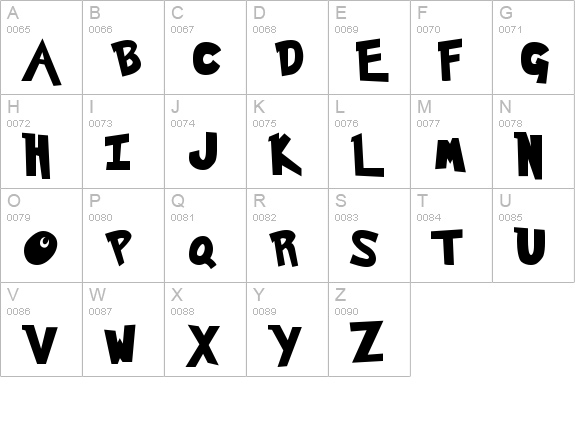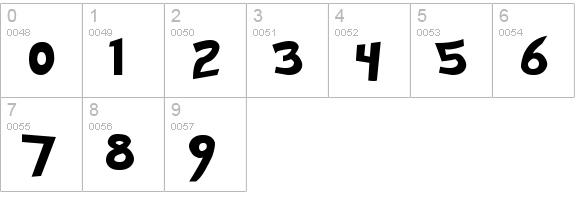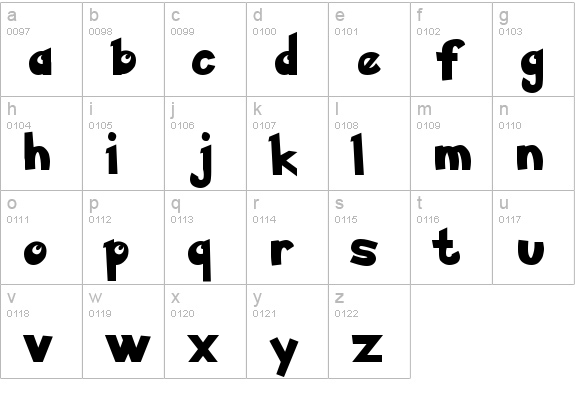
Pokemon Solid Font Details
Pokemon Solid font is a delightful and whimsical typeface inspired by the popular Pokemon franchise. With its bold and playful design, this font perfectly captures the spirit of the beloved characters and creatures from the Pokemon world. The solid, blocky letters make a strong statement and add a touch of fun to any project. Best of all, Pokemon Solid font is freely available to download at FontsMarket.com. Whether you're designing a poster, creating a birthday card, or adding a touch of nostalgia to your digital creations, this font is a fantastic choice. Embrace the magic of Pokemon with this charming and versatile typeface that is sure to bring a smile to your face.